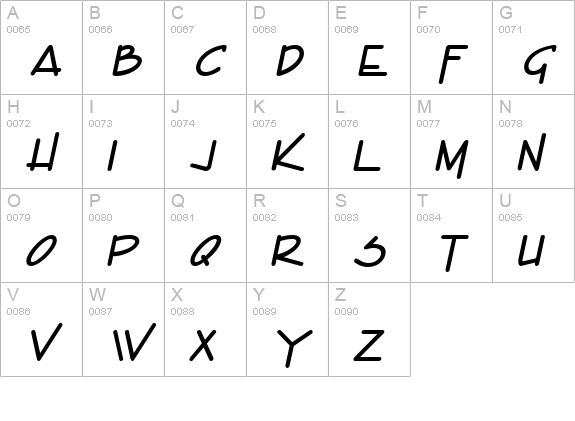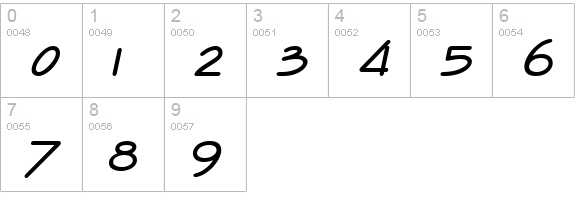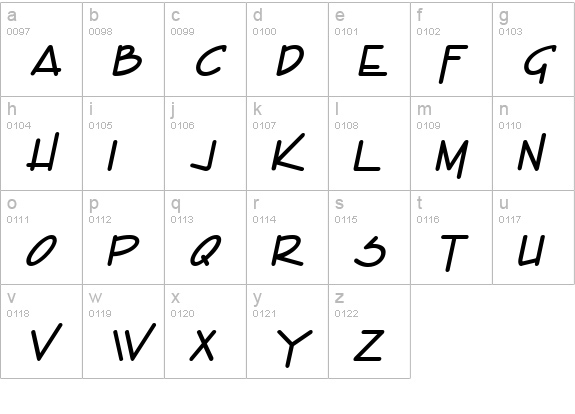
Enview BoldItalic is a sophisticated and elegant typeface that combines the boldness of a sans-serif font with the graceful styling of italics. Its striking appearance makes it ideal for creating eye-catching headlines, logos, and branding materials. The unique blend of thick strokes and slanted characters adds a touch of modernity and flair to any design project. What sets Enview BoldItalic apart is its versatility - it can be used for both formal and informal purposes, making it a versatile addition to any designer's toolkit. Whether you're working on a sleek corporate presentation or a trendy fashion magazine, this font will elevate your designs to the next level. And the best part? Enview BoldItalic is completely free to download at FontsMarket.com. So go ahead and add this stunning typeface to your collection today and watch your designs come to life with style and sophistication.